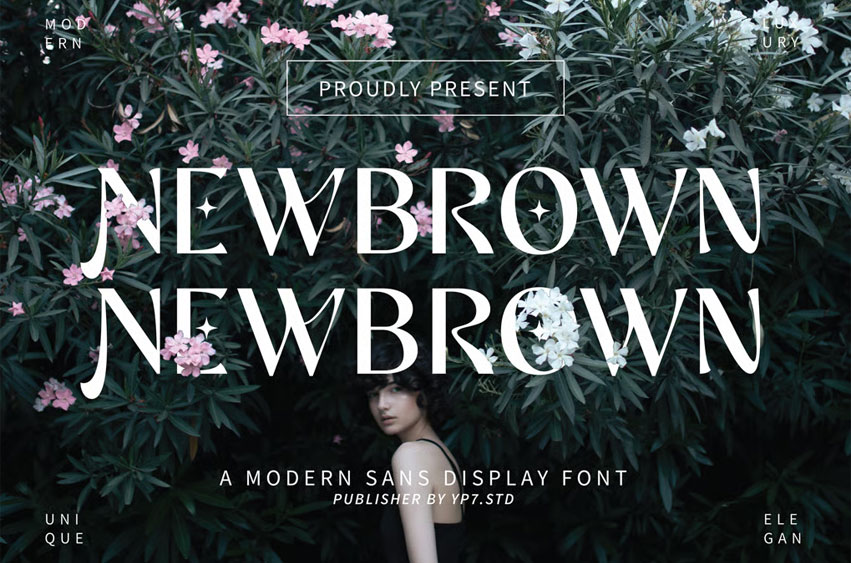
Newbrown Font Modern Sans Display Font. This font is well-suited for a variety of contexts, such as print design, promotional materials, or magazine layouts.
Newbrown